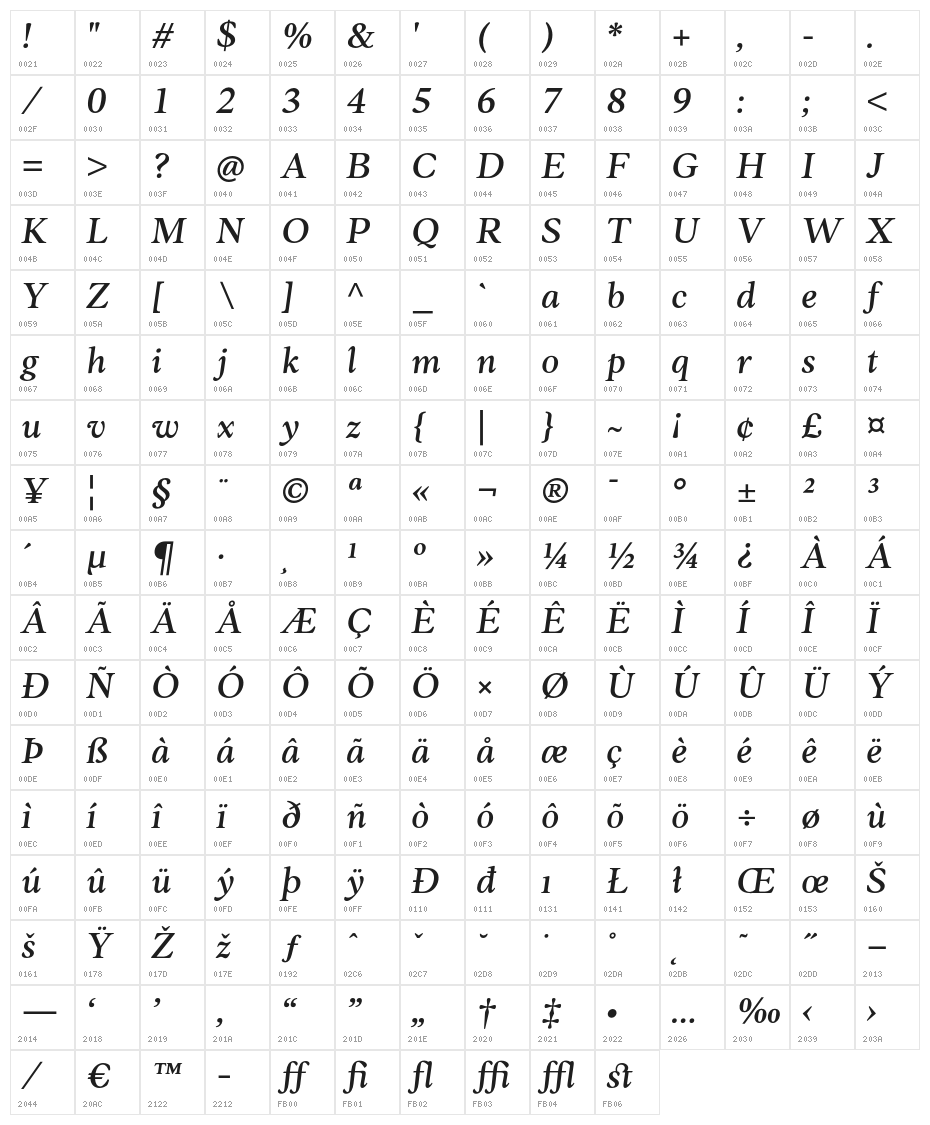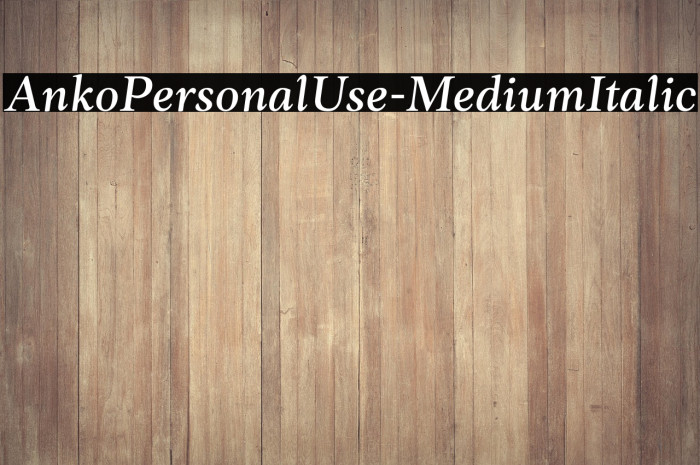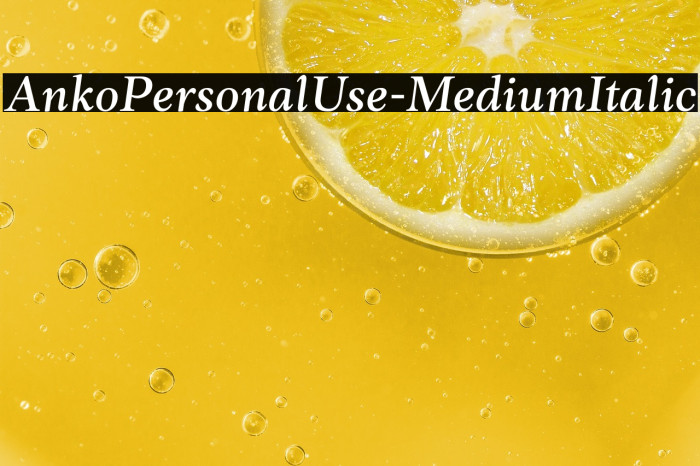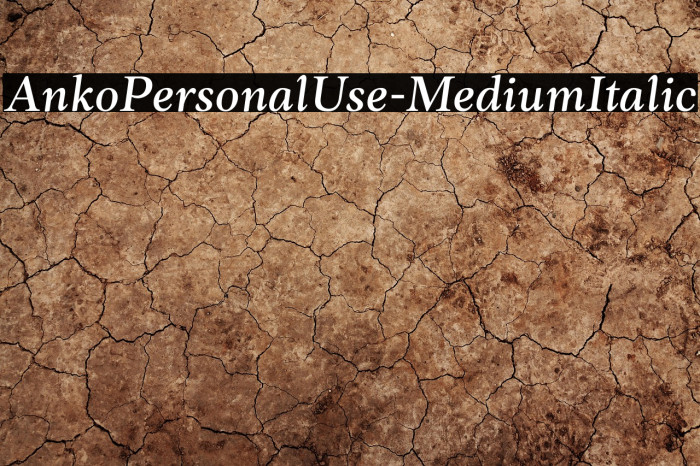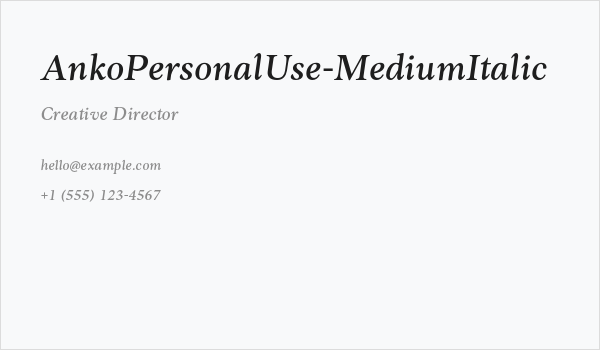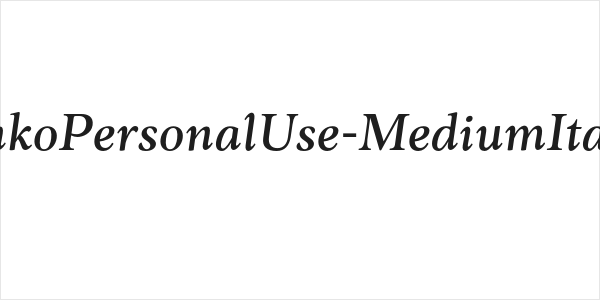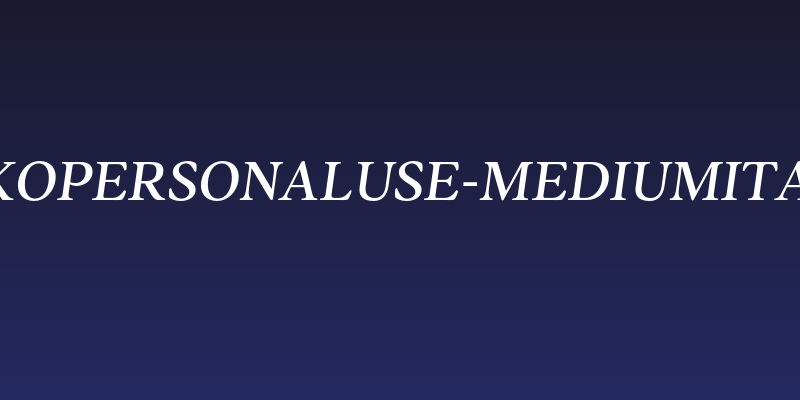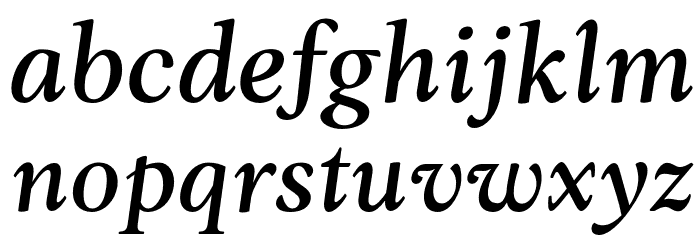
AnkoPersonalUse-MediumItalic Font
AnkoPersonalUse-MediumItalic Description
This font features a classic serif style with a medium weight and italic slant, offering a sophisticated and elegant appearance. The characters are well-defined with subtle curves and a moderate contrast between thick and thin strokes, enhancing readability while maintaining a stylish look. The uppercase letters exhibit a traditional form, while the lowercase letters have a slightly more playful and dynamic feel due to their italic nature. The numerals are clear and consistent with the overall design, making them suitable for both text and display purposes. Special characters are included, maintaining the font's cohesive aesthetic.